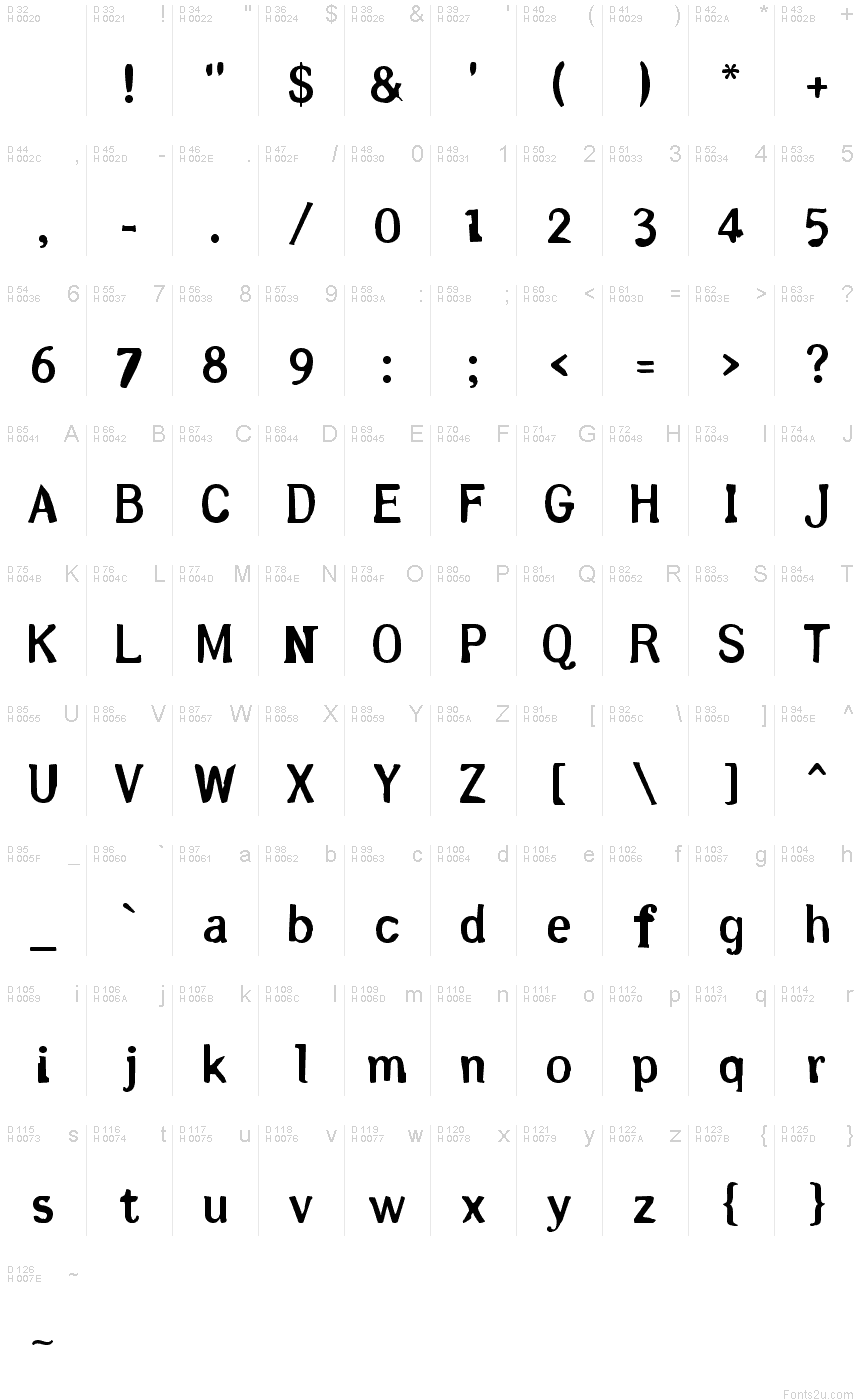
Arsle Gothic
Arsle Gothic font is a free eroded gothic display typeface. It has the grit and old-world weight people reach for when a project needs menace or ritual, yet it stays far clearer than dense blackletter. Thick strokes, rounded nicks, and rough, ink-worn edges make it feel like a headline pulled from a weathered broadside.
Using Arsle Gothic works beautifully for album covers, bar posters, zine mastheads, tattoo-inspired branding, spooky event flyers, merch, and game titles. This free font really comes alive at larger sizes; pair it with a plain sans like Inter to keep the texture sharp and the message easy to read.